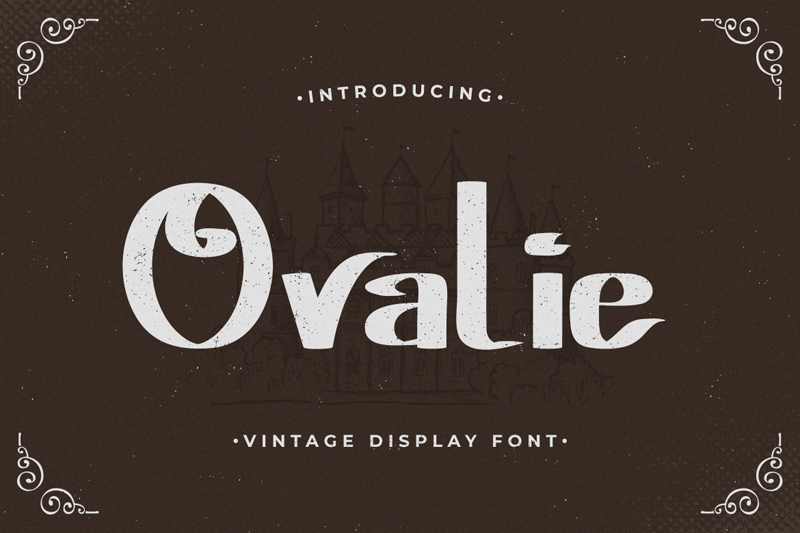
Font name: | Ovalie |
Author: | Type Factory |
Note by Type Factory | |
Ovalie is a vintage display font that was made by hand and inspired by classic posters. Ovalie comes with uppercase, lowercase, numerals, symbols & punctuations, alternate, ligature and multilingual support. Perfect to use for Logotype, Letterhead, Poster, Apparel Design, Labels, and many more designs. Full Version Download Here : https://typefactory.co/product/ovalie-vintage-display-font/ https://www.creativefabrica.com/product/ovalie/ref/501262/ |